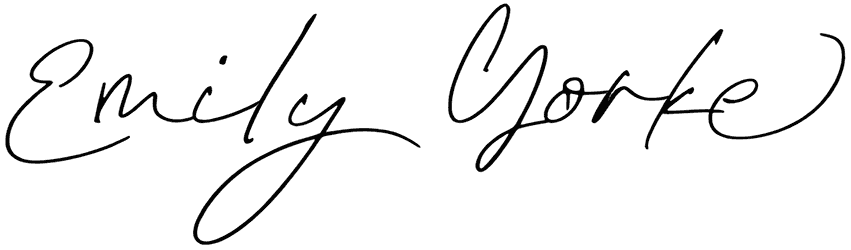
Emily Yorke Font
Emily Yorke is a modern calligraphy font that is perfect for adding a personal touch to your design without being too formal. This handwritten font is made of very thin strokes that are connected with irregular lines and have affected the readability to a great extent.
This signature font takes its personality from narrow and feminine letters that seem to carry a lot of personality and can give good credit to books, albums, restaurant menus, and wedding cards.